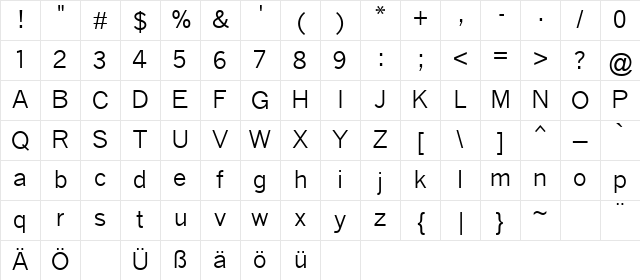
Complete QuickType Regular glyph index. Displaying only characters natively supported by QuickType Regular font.
QuickType is a composed and adaptable typeface that performs quietly and consistently across a wide range of design contexts.